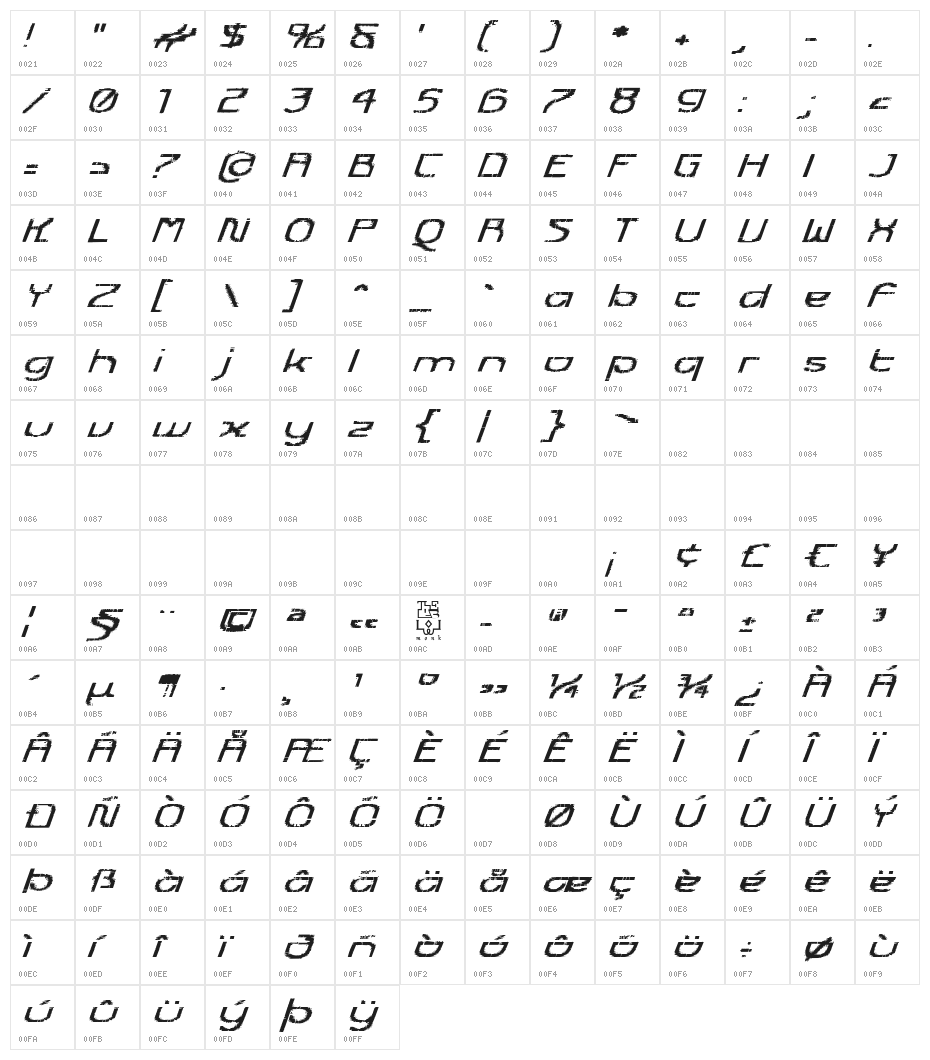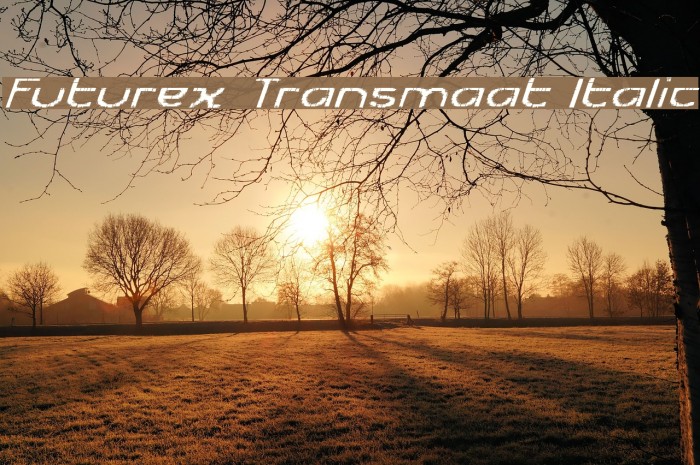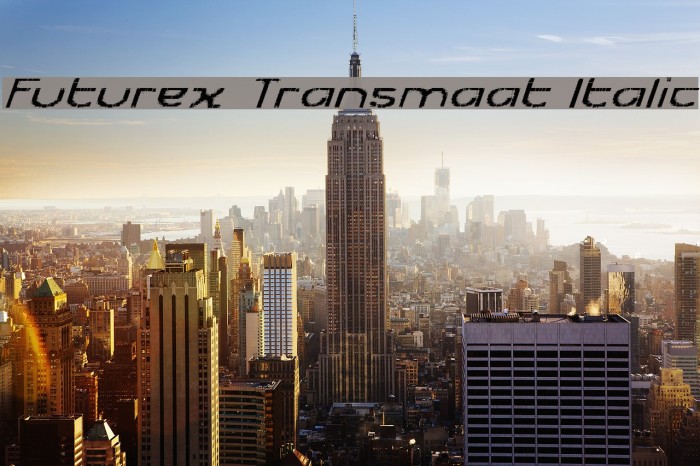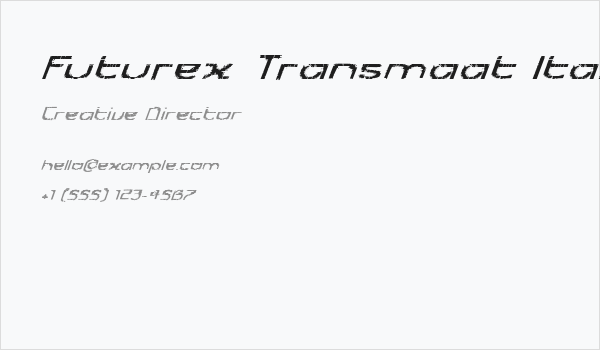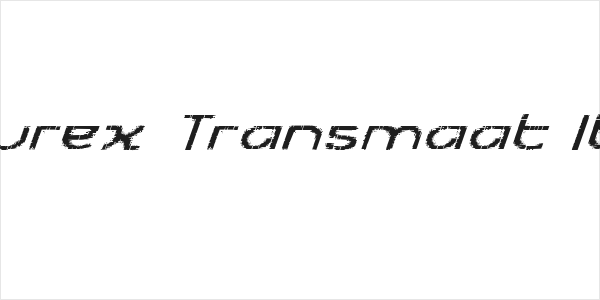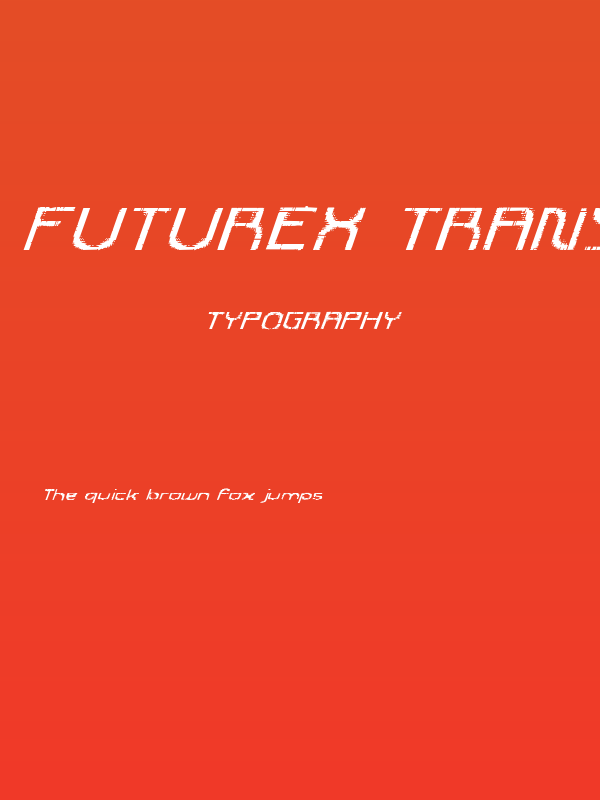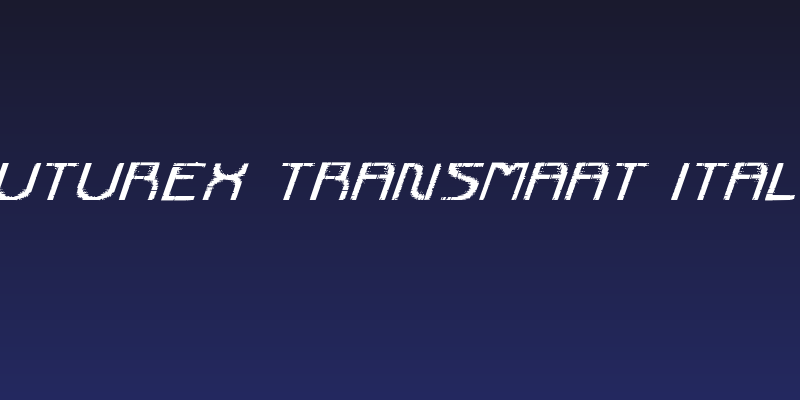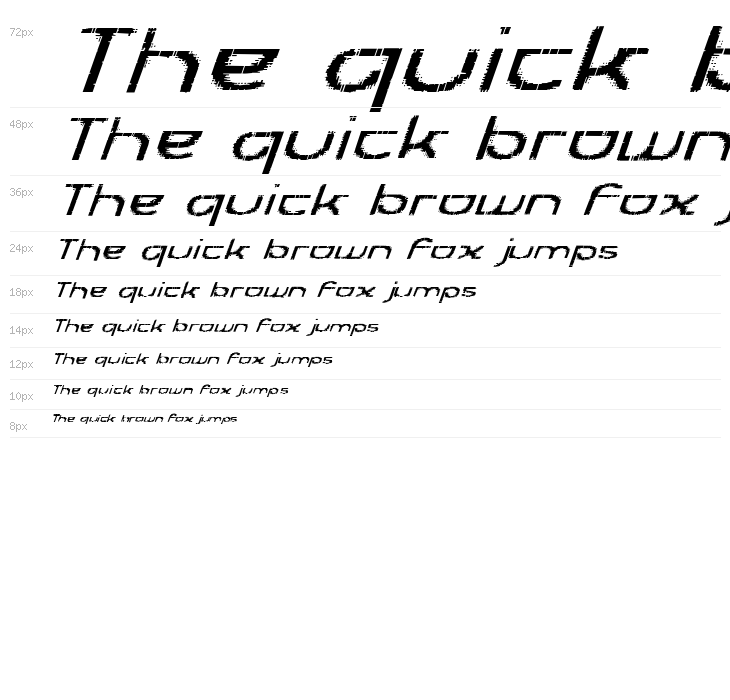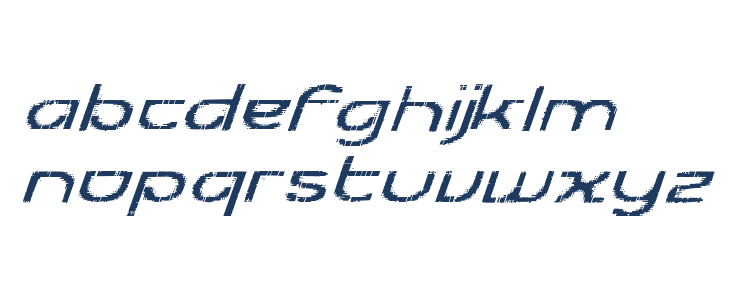
Futurex Transmaat Italic Font
Futurex Transmaat Italic Description
This font features a futuristic and dynamic style with a distinct italic slant, giving it a sense of motion and speed. The characters are constructed with sharp, angular lines and a slightly distressed texture, adding a modern and edgy feel. The uppercase and lowercase letters maintain a consistent design, while the numerals and special characters complement the overall aesthetic. The font's unique appearance makes it suitable for projects that require a bold and contemporary look.
Proposed ProjectsIdeal for technology branding, sci-fi posters, video game titles, and modern advertising.